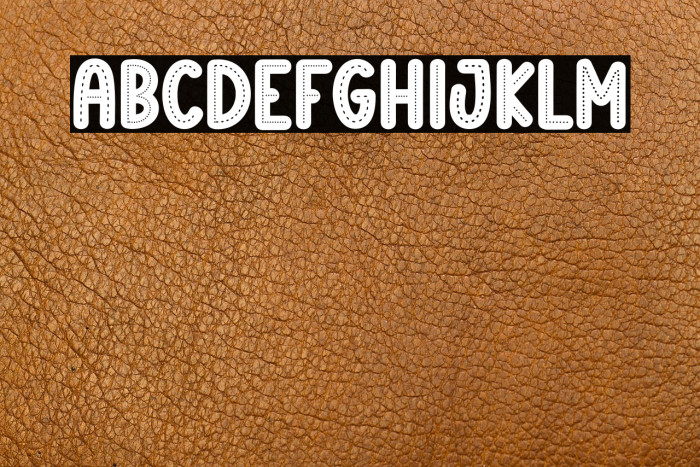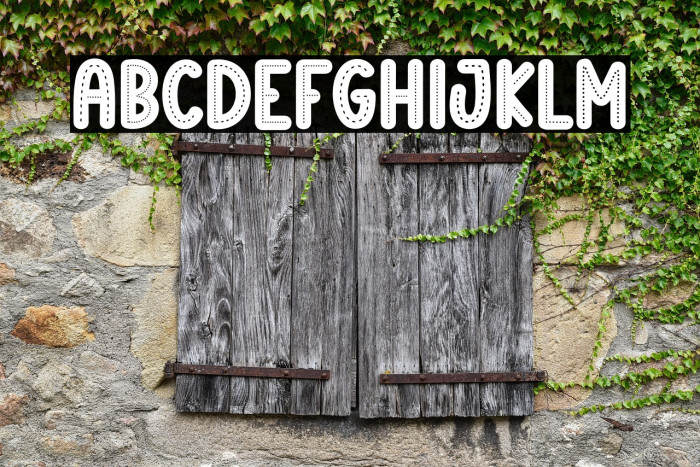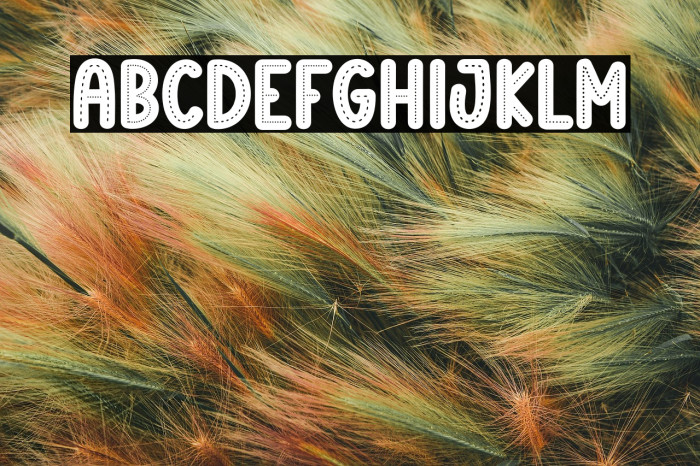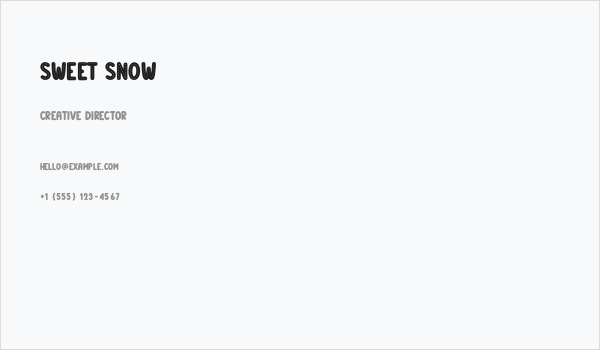
Sweet Snow Font
Sweet Snow Description
This playful and decorative font features bold, rounded characters with a unique dotted pattern along the inner edges, giving it a whimsical and fun appearance. The letters are evenly spaced and maintain a consistent thickness throughout, creating a harmonious and balanced look. The font includes both uppercase and lowercase letters, numbers, and a variety of special characters, making it versatile for different design needs. Its distinct style is eye-catching and adds a touch of creativity to any project.
| Overall Style | Playful, Whimsical |
| Proposed Projects | Ideal for children's books, playful branding, party invitations, and creative posters. |